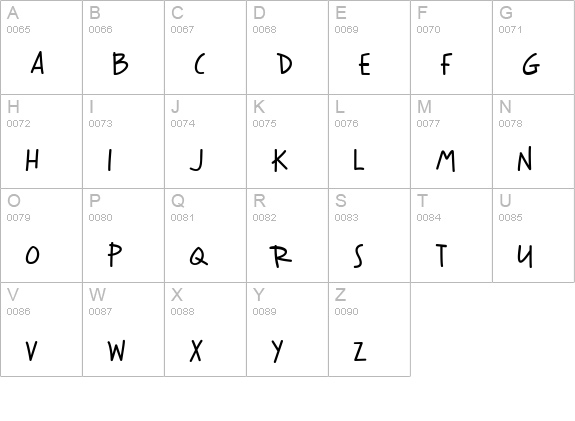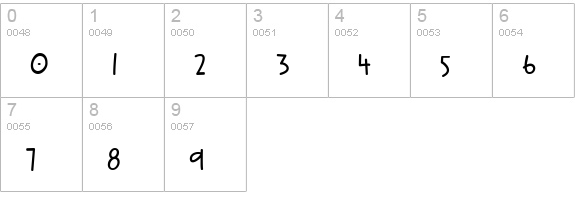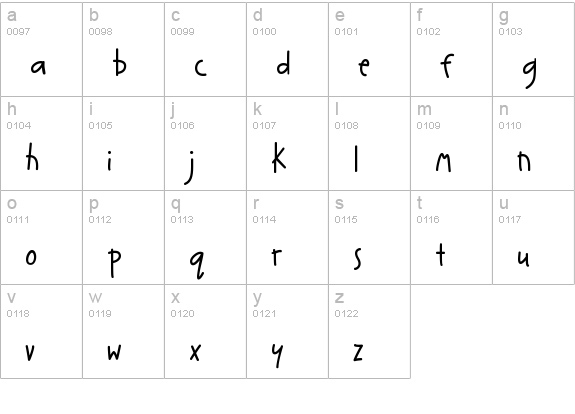
CK Easy Goin' Font Details
Introducing CK Easy Goin' font, a modern and relaxed typeface perfect for adding a touch of casual charm to your designs. This versatile font features a clean and easy-to-read style, making it ideal for a wide range of projects, from branding to social media graphics. With its friendly and approachable appearance, CK Easy Goin' is sure to make a lasting impression on your audience. The best part? CK Easy Goin' font is available for free download at FontsMarket.com! Simply visit the website to get your hands on this beautiful font and start incorporating it into your creative projects today. Don't miss out on the opportunity to add a touch of laid-back sophistication to your designs with CK Easy Goin' font.